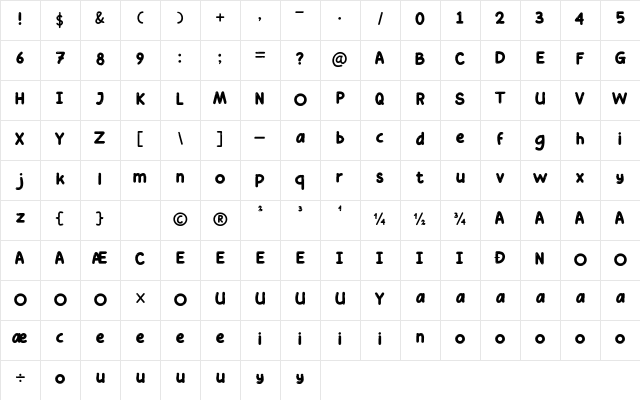
Complete Gleeful Bubble Regular glyph index. Displaying only characters natively supported by Gleeful Bubble Regular font.
Gleeful Bubble has an approachable, lighthearted character - its loose, expressive forms are well-suited to children's content, casual branding, and fun-first design.
Font Pairing: Pairs well with a rounded or humanist sans for body copy, maintaining the friendly tone without relying on Gleeful Bubble to carry extended reading.
Pro Tip: Use Gleeful Bubble at larger display sizes where its expressive character can land. Pair with a clean, simple sans for body copy to maintain readability.